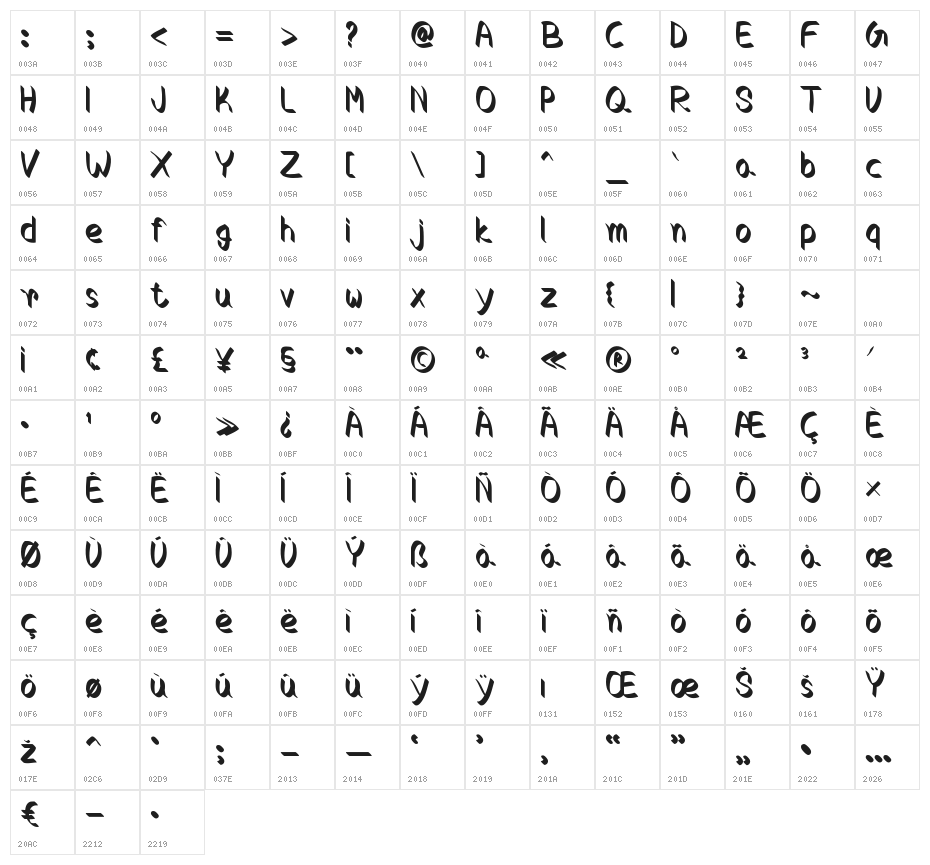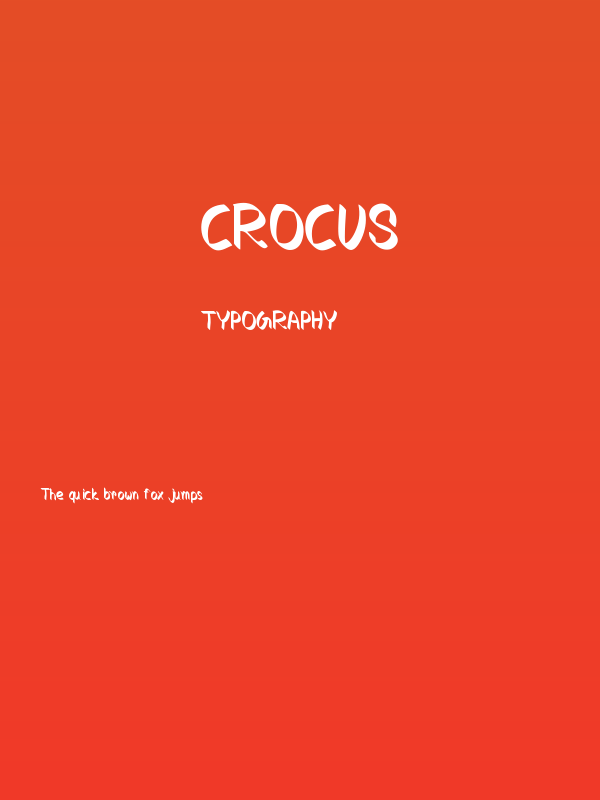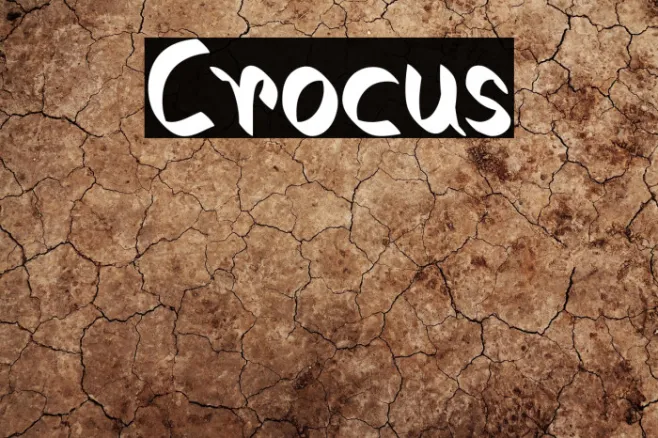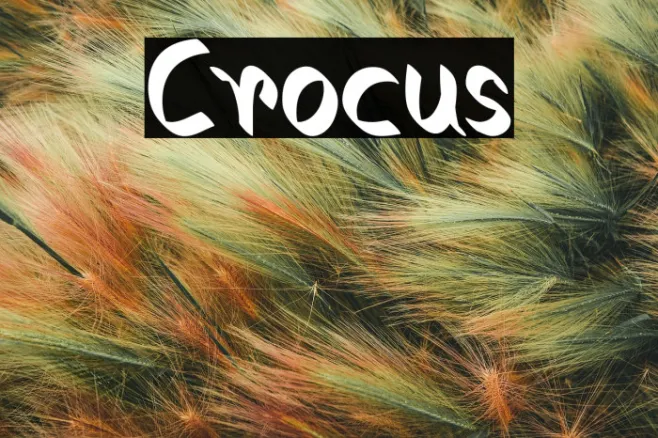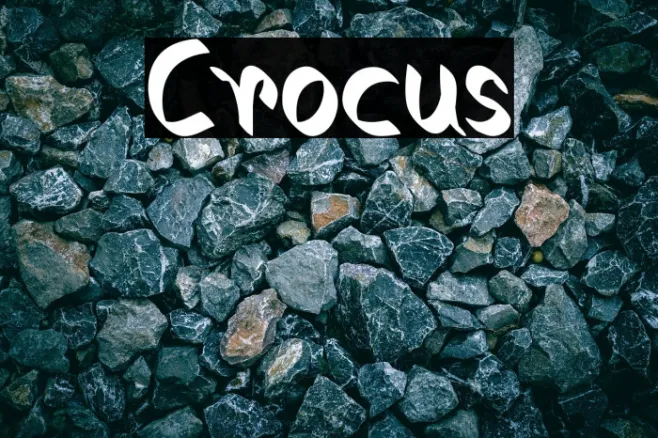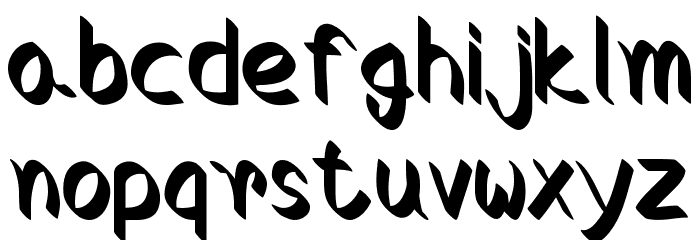
Crocus Font
Crocus Description
This font features a bold and dynamic style with a handwritten appearance. The characters exhibit a playful and artistic flair, with varying stroke thicknesses that add a sense of movement and energy. The uppercase letters are bold and slightly condensed, while the lowercase letters maintain a consistent flow, enhancing readability. The font's unique character shapes, such as the angular 'A' and the curved 'g', contribute to its distinctive look. This font is well-suited for creative and expressive design projects, where a touch of personality is desired.